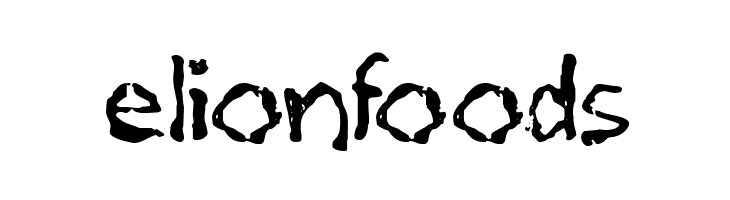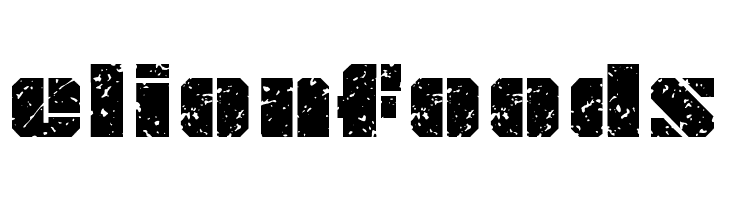
A bold, distressed font with a rugged, vintage appearance.
A rugged, distressed font with an organic, hand-drawn appearance.
A distressed, grungy font with irregular edges and a chaotic appearance.
A distressed, grunge-style font with a textured, urban appearance.
A bold, distressed stencil-style font with a rugged, military-inspired look.
A distressed, grunge-style font with a rough, textured appearance.